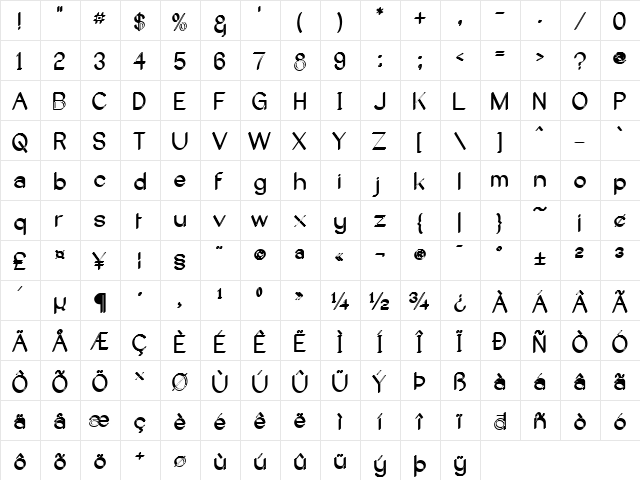
Castorgate - Distort Regular
| Designer | Graham Meade |
Design Context for Castorgate - Distort Typeface
Castorgate - Distort is a composed and adaptable typeface that performs quietly and consistently across a wide range of design contexts.
Pro Tip: Use Castorgate - Distort in both headline and body roles to test its range before committing to a single application.